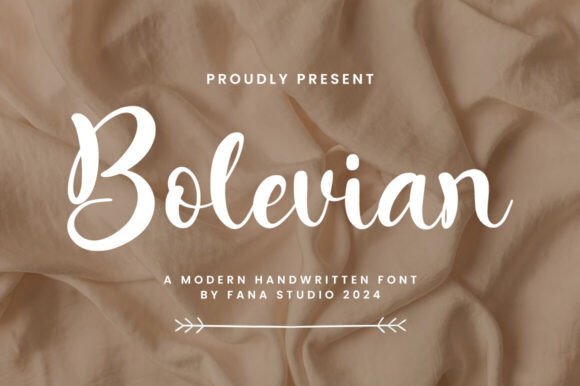
Do you ever get that feeling when you’re brainstorming a new idea, and suddenly, everything just comes together? The perfect color palette, the ideal typography, and the mood you want to convey all blend in harmony. For designers, this moment is pure magic. And, for those who love the handwritten look, there’s a secret ingredient that can elevate their projects to the next level – the Bolevian Script.
This gorgeous typographic font is perfect for a wide range of projects, from logos and branding to invitations, stationery, and social media posts. Its unique charm and elegance make it a valuable asset for designers looking to add a personal touch to their work. Whether you’re creating a wedding design or a product packaging label, the Bolevian Font is sure to bring a touch of sophistication and whimsy to your project.
Bolevian Font Key Features
- Font Family: Bolevian
- Character Set: Supports Latin, Cyrillic, and Greek alphabets, with over 1000 glyphs
- Unique Characteristics: Bolevian features a unique, elegant design with subtle flair and flair, making it suitable for various design applications, including typography, logos, and branding materials
Bolevian Font Review
Overall, I’m impressed with the Bolevian Font’s unique aesthetic and versatility. ✨ Its bold and elegant design makes it perfect for headings and titles. I’ve used it in various projects, and it always adds a touch of sophistication.
- What works well:
- Unique and elegant design
- Perfect for headings and titles
- Great for projects that require a bold and sophisticated look
However, there are some limitations to consider. ⚠️ The font’s bold weight can sometimes be overwhelming, making it difficult to read in large blocks of text. Additionally, it’s not ideal for body text or paragraphs due to its lack of legibility.
- Limitations:
- Overwhelming bold weight in large blocks of text
- Lack of legibility in body text or paragraphs
Overall, I’d recommend the Bolevian Font for projects that require a bold and elegant look. It’s perfect for headings, titles, and other design elements where you want to make a statement. However, it’s not the best choice for body text or paragraphs.
The Bolevian font is a great choice for creating a unique and elegant look in your designs. Use it for headings, titles, and any other text that needs to stand out. Some common use cases include:
- Any design project that requires a sophisticated and elegant look